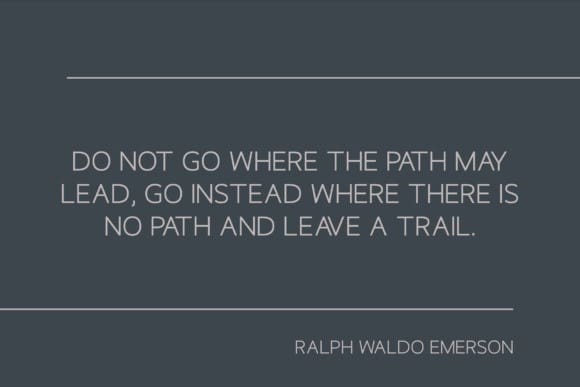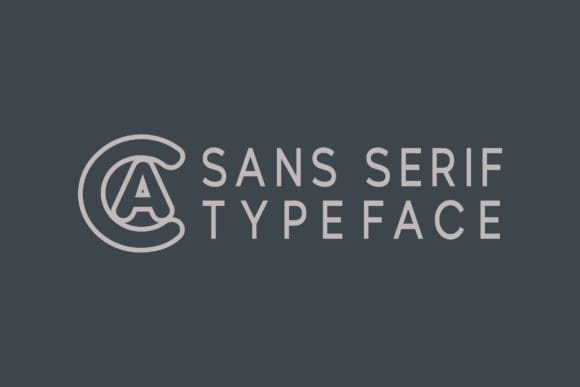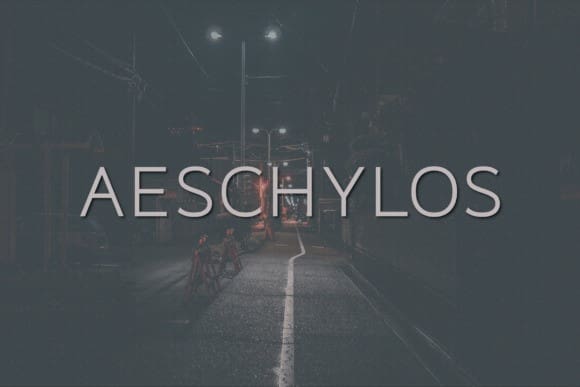
Aeschylos Font
Aeschylos Font, a contemporary, sophisticated sans serif typeface. Immerse your projects in this versatile typeface, featuring not only upper-case characters but a full digit set from 0 through 9. Its rich library also comprises a broad assortment of punctuation and symbols. Offering flexibility like no other, Aeschylos effortlessly fits all your creative needs. Whether you’re designing emblems, setting the tone for your wedding invites, adding flair to your quotes, or aiming for a standout print advertisement, Aeschylos brings your aspirations to life. It’s an ideal choice for publications, too, ensuring your magazines receive the modern, classy touch they deserve. Welcome to Aeschylos Font – where style meets utility seamlessly.